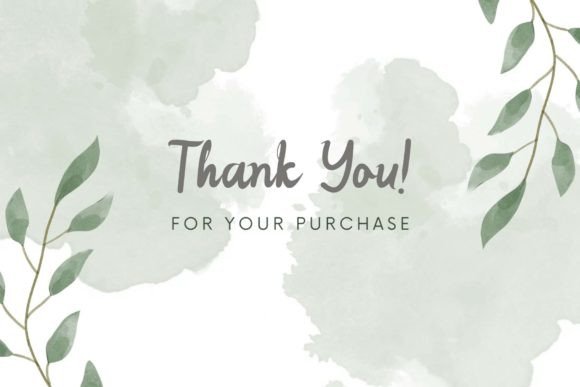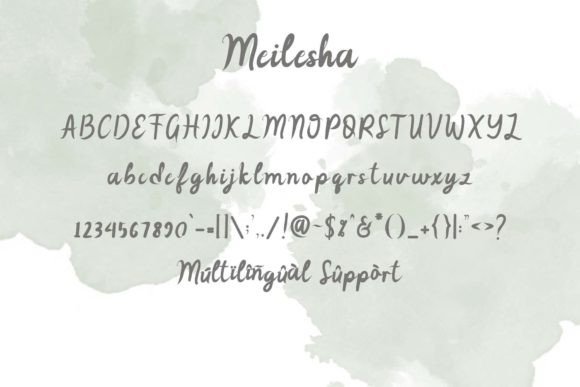
Introduction to Meilesha Font Font
Fonts play a crucial role in design, and the Meilesha Font font is a typeface that brings both character and versatility to any project. Whether you’re working on a branding project, a website, or a print design, the Meilesha Font font offers a unique style that can elevate your work.
Meilesha is a unique and beautiful handwritten font.
This font is equipped with uppercase, lowercase, numerals, punctuations, and multilingual support It is suitable for invitations, weddings, ornaments, logos, banners, posters, prints, branding, and others.
Key Features of Meilesha Font Font
Why Choose Meilesha Font Font?
The Meilesha Font font is more than just a typeface – it’s a design tool that helps you communicate your message with style and clarity. Its unique character set and versatile design make it suitable for a wide range of applications, from elegant invitations to bold headlines.
With its carefully crafted letterforms and balanced proportions, the Meilesha Font font ensures readability and visual appeal across all mediums.
What makes Meilesha Font font special?
The Meilesha Font font stands out with its unique design, exceptional readability, and versatility across various design applications.